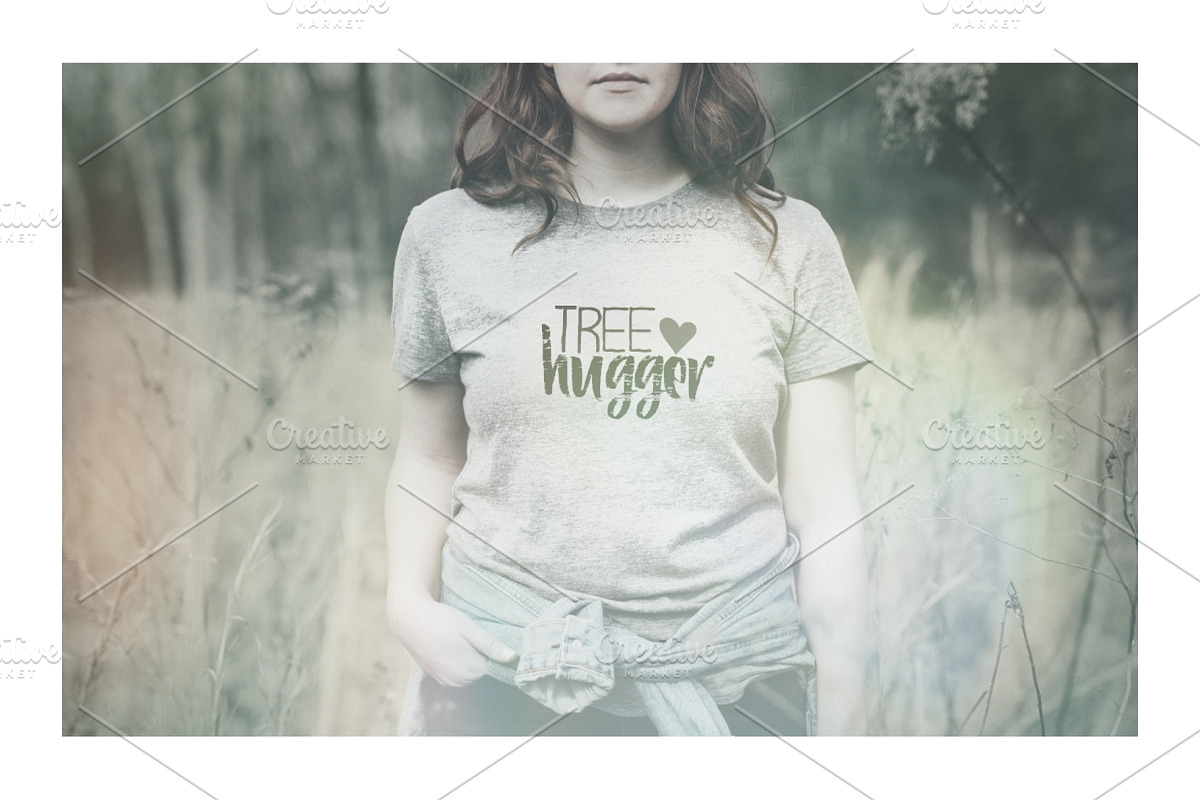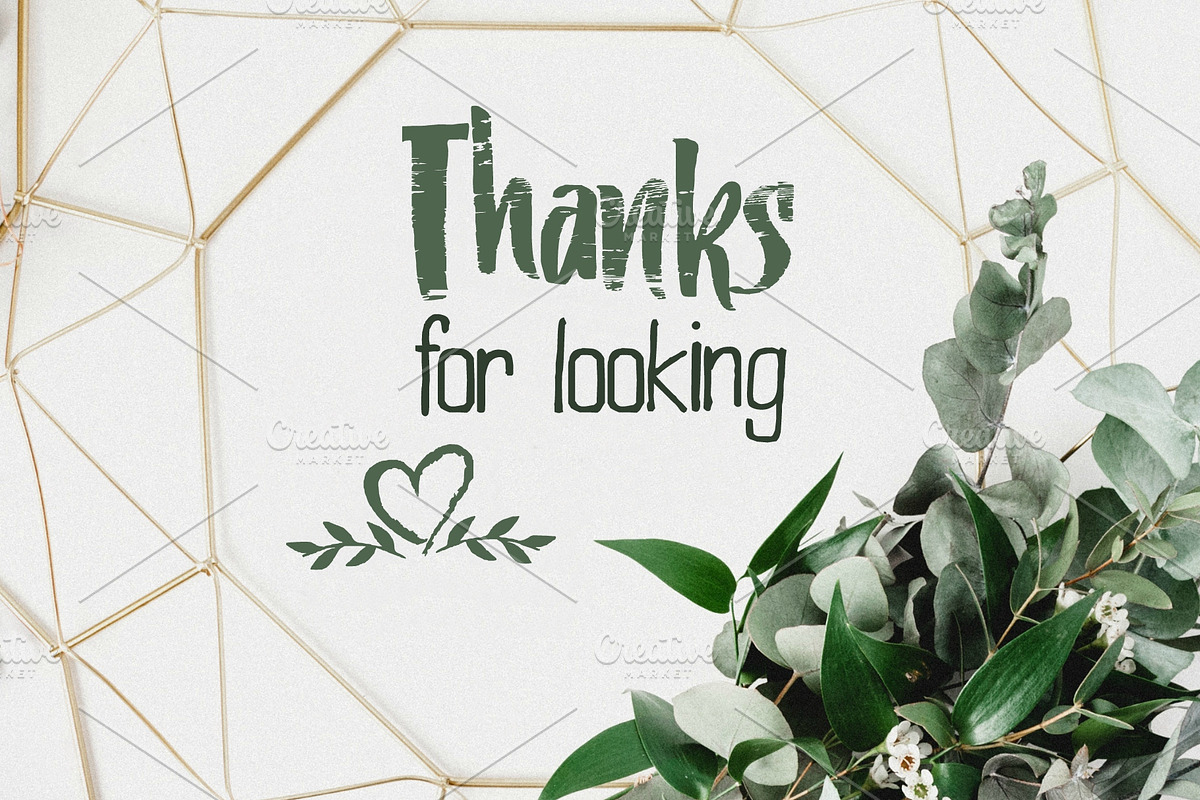
Willow & Thyme with Logo Ornaments
Introducing Willow & Thyme, a nature inspired font duo with nature embellishments.
As a little girl growing up on Daddy's farm, I loved to wander by the river, enjoying nature. This font bundle is inspired by a little nostalgia and a love of the hours spent walking in nature. It includes:
Willow: A casual hand-lettered script font with bold lettering, dry brush stroke texture and just a bit of bounce. Reversed, white on dark, it reminds me of the white bark on the trees that grow wild behind our old farmhouse.
Thyme: A quirky little hand-drawn sans serif font that complements Willow perfectly and was inspired by the handwritten labels on the jars of fragrant herbs and spices in Mama's old cupboard.
Nature Rules: an entire font crammed with nature inspired embellishments. It's practically a little logo shop all by itself. Add leaves or vines, some text -- and you're good to go!